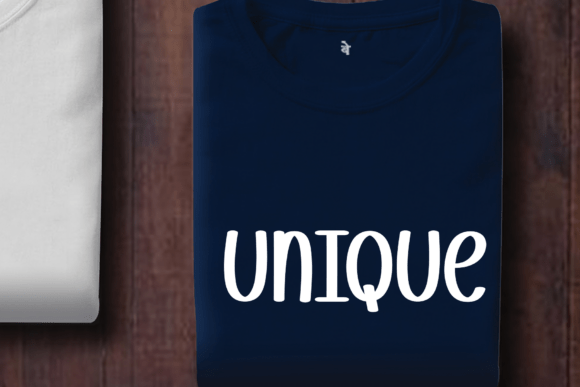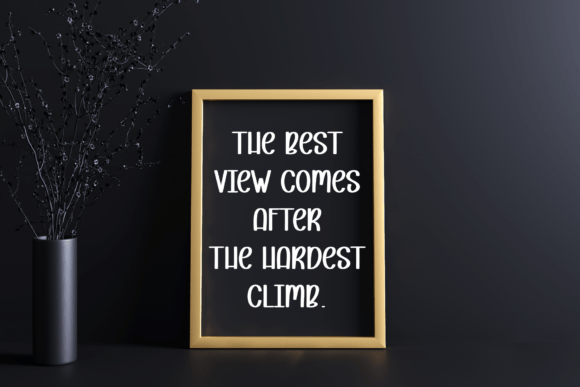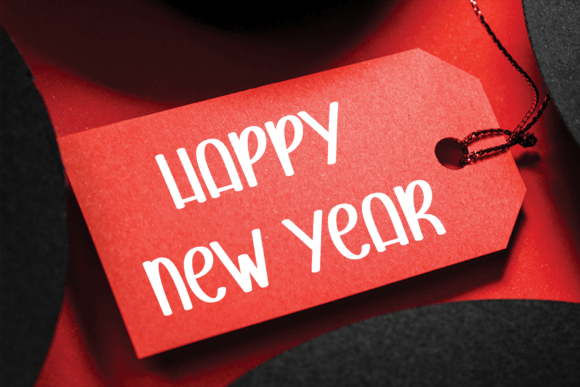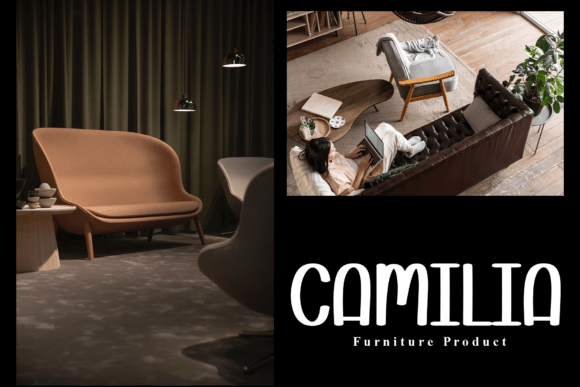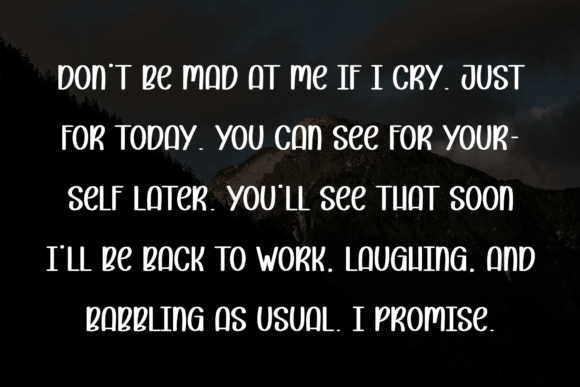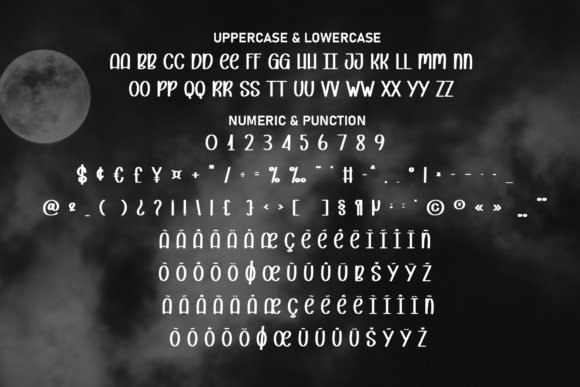
Unlock the Magic of Whimsical Design
Have you ever stared at a moonlit night, feeling an inexplicable connection to the mysteries that lie beyond our world? As creatives, we often find ourselves drawn to those magical moments, where the ordinary becomes extraordinary. And that’s exactly where the Black Moon Font comes in – a mesmerizing display typeface that embodies the essence of a mystical-and-playful soul.
Designed to transport your designs to a realm of wonder, Black Moon Font is the perfect choice for those looking to add a touch of enchantment to their work. Its unique, hand-drawn letterforms feature soft-bubble contours and an organic vertical stretch that bridges the gap between folklore illustrations and modern boutique branding. Whether you’re working on an independent esoteric shop identity or a personalized celestial greeting card, Black Moon Font is sure to leave a lasting impression.
As a valuable addition to any designer’s toolkit, Black Moon Font offers a heavy structural weight and a friendly personality that’s hard to resist. With its versatility and charm, it’s no wonder that Black Moon Font is fast becoming the go-to choice for creatives looking to add a touch of magic to their designs.
Black Moon Font Key Features
- Unique Characteristics: Black Moon Font features a unique blend of modern and vintage elements, with a strong, geometric feel and a subtle, hand-drawn texture.
Designer Review: Black Moon Font
Overall, I think the Black Moon font is a great addition to any designer’s toolkit. ✨ Here are some things that work well:
- Unique aesthetic: Black Moon font has a distinctive, cosmic vibe that’s perfect for projects with a space or sci-fi theme.
- Ease of use: The font is available in a range of weights and styles, making it easy to use in a variety of contexts.
- Legibility: Despite its unusual design, Black Moon is surprisingly easy to read, even at smaller font sizes.
- Limited language support: The font may not support certain languages or character sets, which could be a problem for multilingual projects.
- Overuse: The font’s distinctive style can be overwhelming if used too much, so be sure to use it sparingly.
- Compatibility issues: Some older systems or software may not support the font, which could lead to compatibility issues.
Overall, I’d give the Black Moon font 4 out of 5 stars. It’s a great choice for projects with a unique aesthetic, but be aware of its limitations and use it judiciously. ⚠️
The Black Moon Font is ideal for creating a mysterious and eerie atmosphere in your designs. Use it for:
– Horror movie posters
– Gothic-inspired graphics
– Paranormal-themed designs
– Adding a touch of darkness to your branding